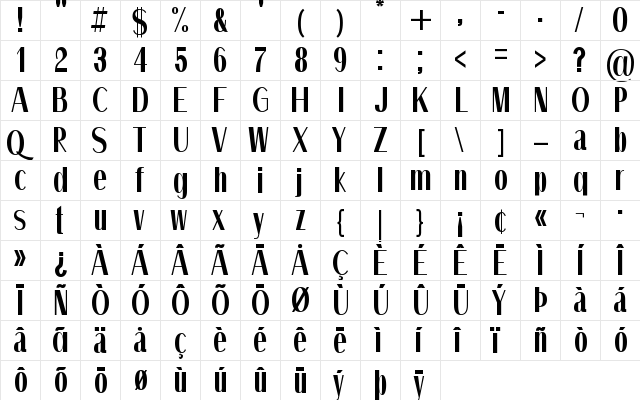
Quiet Streets Regular Font Preview
Quiet Streets Regular
Design Context for Quiet Streets Typeface
Quiet Streets offers clean, dependable letterforms without strong stylistic allegiance, making it a practical choice for designers who need flexibility.